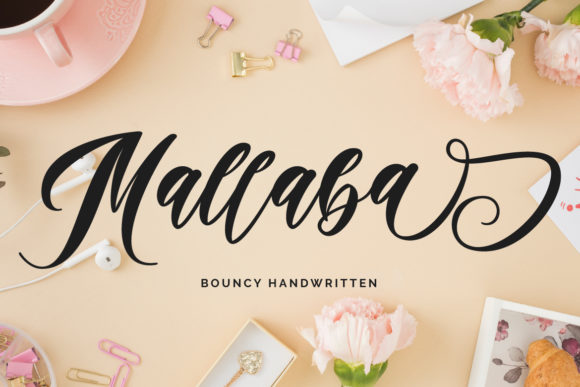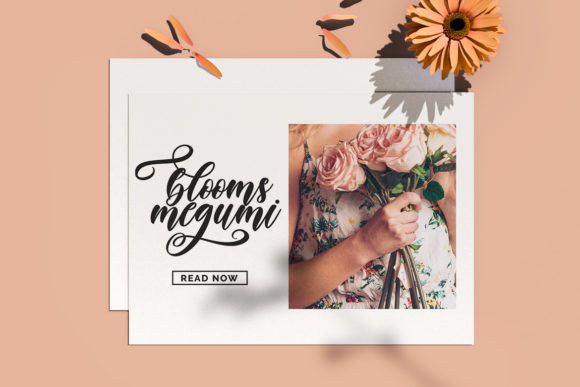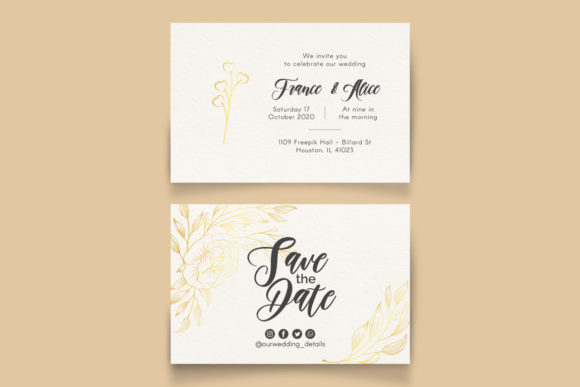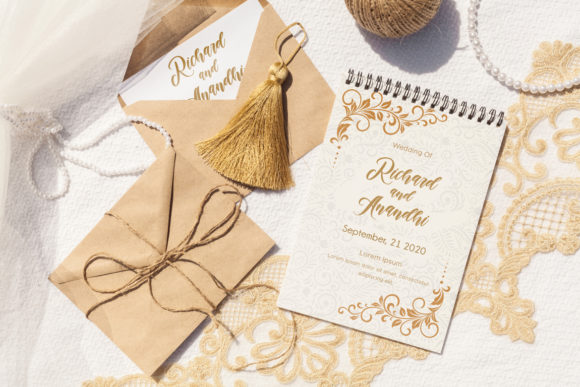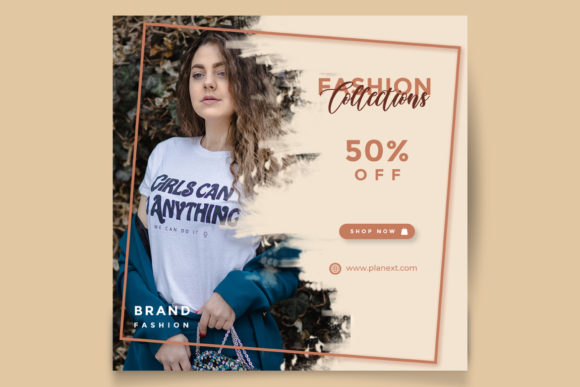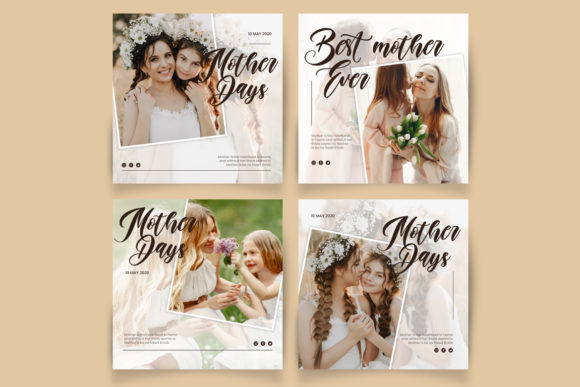
Mallaba Font
About Mallaba Font
Mallaba is a sweet handwritten font, created by using a brush pen. It simplifies elegance into one truly outstanding font, featuring gorgeous swashes and ligatures that make this script incredibly versatile. Mallaba will appeal to a wide range of crafty ideas, from letterheads and titles, to stationery.